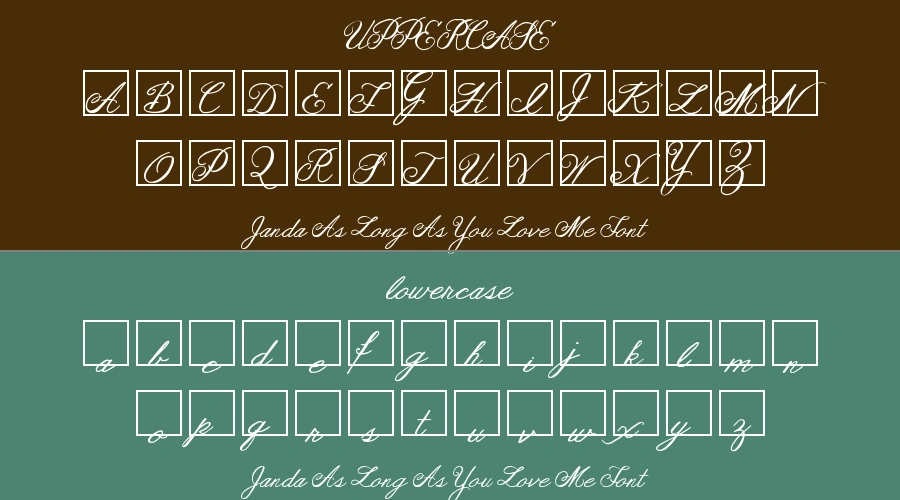
About Janda As Long As You Love Me Font
Janda As Long As You Love Me Font embodies typographic excellence through its masterful combination of brush influence and design integrity. Created for brand launches, this typeface delivers exceptional durability and aesthetic excellence across all applications. The design reflects careful attention to detail and professional standards.
Advanced capabilities include distinctive dynamic forms and versatile decorative sets, giving designers creative control. When used in editorial spreads, Janda As Long As You Love Me Font exhibits remarkable brand recognition. The harmonious balance between counter shape and standards alignment sets this typeface apart.